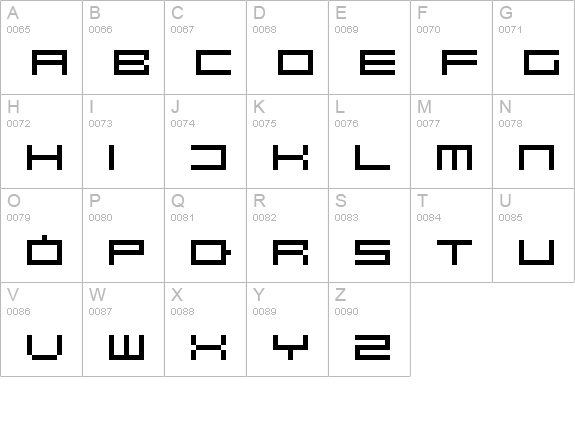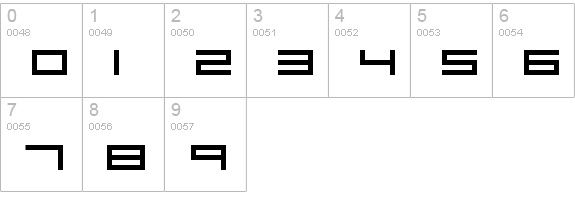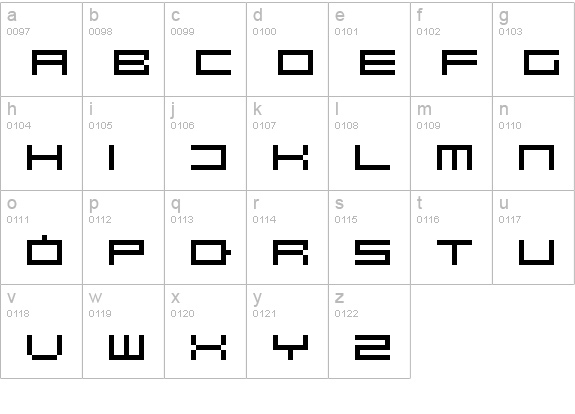
Robotastic Font Details
Robotastic is a free for personal use font in the Modern > Stencil category, designed by Darrell Flood. It has been downloaded 65 times and is available for Windows, Mac and Linux.
Robotastic font is a modern and futuristic typeface that brings a touch of technology and innovation to your design projects. With its sleek lines and geometric shapes, Robotastic exudes a sense of precision and efficiency. This versatile font is perfect for a wide range of applications, from branding and advertising to web design and product packaging.